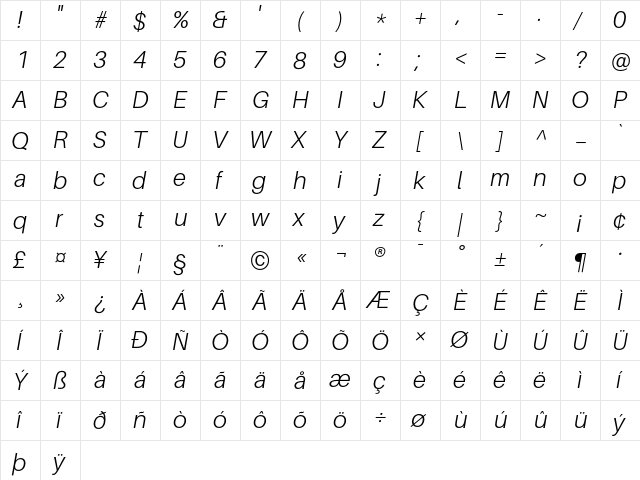
Aileron Light Italic
Design Context for Aileron Light Typeface
Aileron Light offers clean, dependable letterforms without strong stylistic allegiance, making it a practical choice for designers who need flexibility. Its italic angle brings a sense of urgency and motion to the letterforms. The delicate stroke weight brings airiness and refinement to layouts.
Pro Tip: Try Aileron Light for annotation and caption copy alongside an upright companion — the contrast in angle creates a dynamic but ordered typographic system.